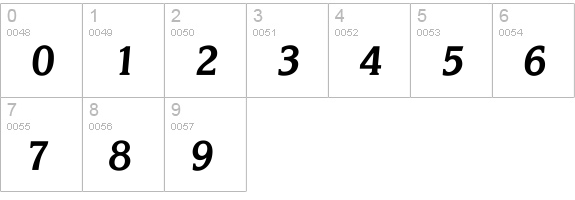
Ikorinth DemiBold Font Details
Ikorinth DemiBold is a sub-bold, structured variant in the Ikorinth typeface family \xE2\x80\x94 well suited to sub-headlines and emphasised passages.
Introducing Ikorinth DemiBold, a captivating and versatile typeface that effortlessly combines elegance with a touch of modernity. This font is perfect for those seeking a bold and impactful visual presence in their designs. Ikorinth DemiBold stands out with its strong and confident letterforms, exuding a sense of authority and professionalism. Whether used for headlines, logos, or body text, this font commands attention and ensures that your message is conveyed with utmost clarity. With its balanced proportions and carefully crafted details, Ikorinth DemiBold offers a harmonious and sophisticated aesthetic that elevates any design project. Its unique character shapes and subtle variations create a dynamic visual rhythm, making it an excellent choice for both print and digital applications. What sets Ikorinth DemiBold apart is not only its impeccable design but also its accessibility. We believe that great design should be available to everyone, which is why this extraordinary font is freely available to download at FontsMarket.com. Now, you can effortlessly enhance your projects with this remarkable typeface without any limitations. Whether you are a professional designer, a creative enthusiast, or someone looking to make a statement, Ikorinth DemiBold is the perfect companion for your typographic needs. Its versatility and timeless appeal ensure that it will remain a staple in your font library for years to come. Experience the power of Ikorinth DemiBold and unlock a world of design possibilities. Download this exceptional font today, free of charge, at FontsMarket.com and let your creativity soar to new heights.